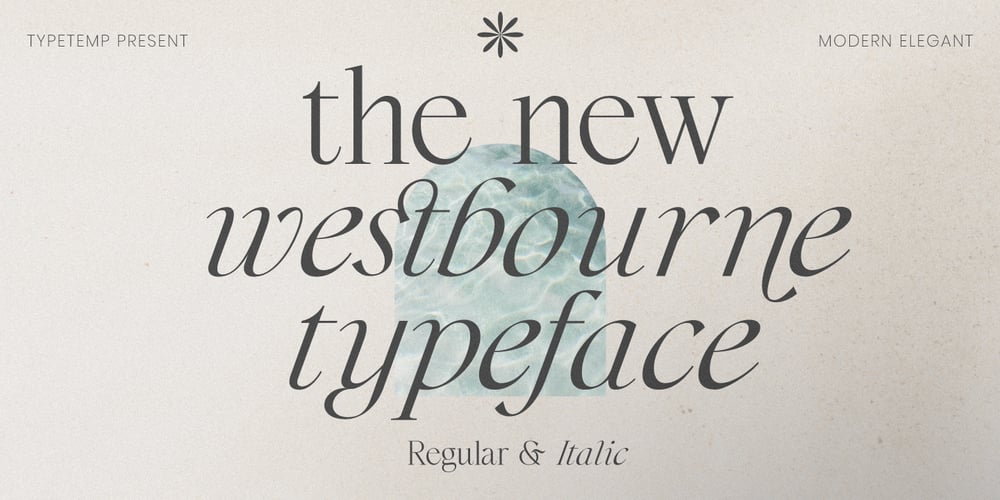
Westbourne Serif Font Family was designed by Egi Ahmad Mufid and published by Typetemp Studio. Westbourne Serif contains 2 styles and family package options. Westbourne Modern Serif Typeface is a stylish font It has both modern look. Comes with alternatives and ligatures, helps to create stunning logos, quotes, posts, blog posts. branding projects, magazine imagery, wedding invitations, and much more.WHAT’S YOU GET ? Westbourne Regular and Italic Unique Letterforms Works on PC & Mac Simple Installations Accessible in the Adobe Illustrator, Adobe Photoshop, Microsoft Word Fully accessible without additional design software. I really hope you’ll get pleasure using Westbourne font and it will be perfect addition to your font collection! Contact me with an inbox message If you have any question. Thank you! Happy Creating.